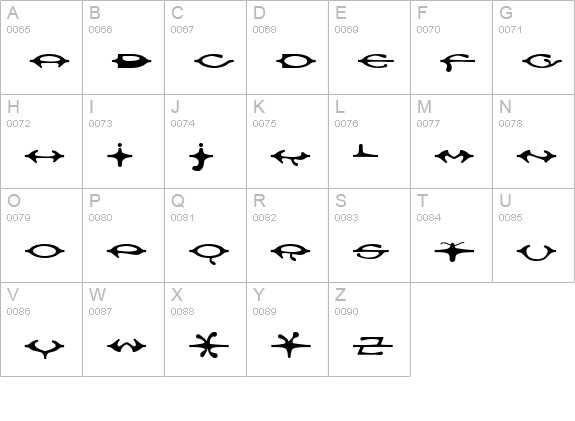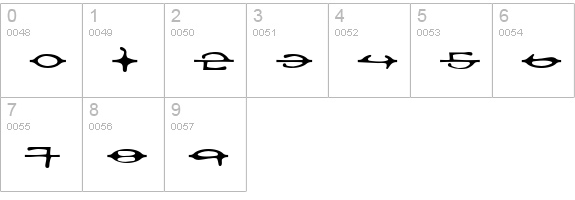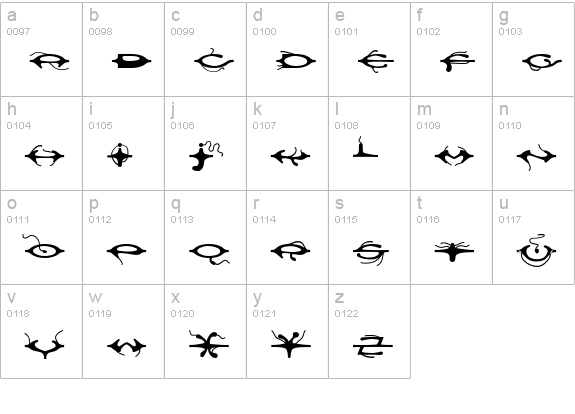
DNA ad Font Details
Introducing DNA ad font, a sleek and modern typeface that exudes sophistication and elegance. With its clean lines and sharp edges, this font is perfect for creating eye-catching designs that demand attention. The DNA ad font is not only stylish, but also versatile, making it suitable for a wide range of design projects. One of the best things about the DNA ad font is that it is completely free to download at FontsMarket.com. This means that you can start using this beautiful typeface in your projects without having to spend a penny. Whether you're working on a branding project, a poster design, or a website, the DNA ad font is sure to elevate your work to the next level. Don't miss out on the opportunity to enhance your designs with the DNA ad font. Download it for free today at FontsMarket.com and see the difference it can make in your projects!